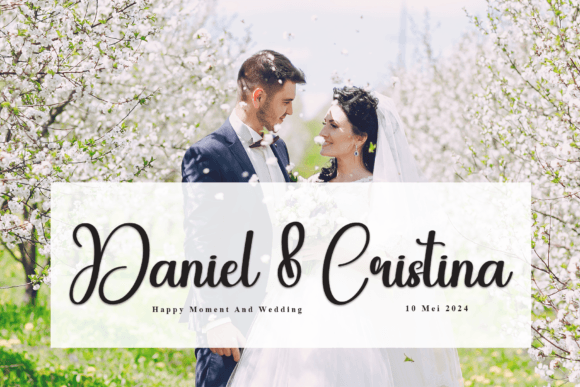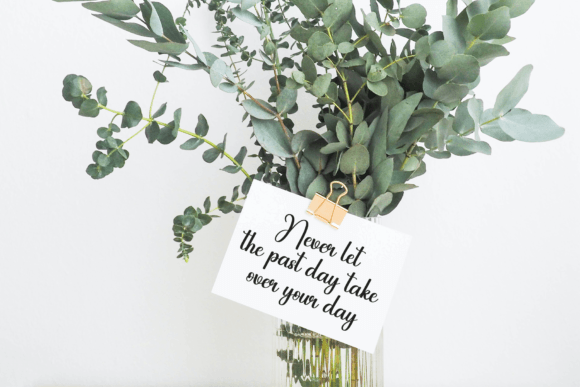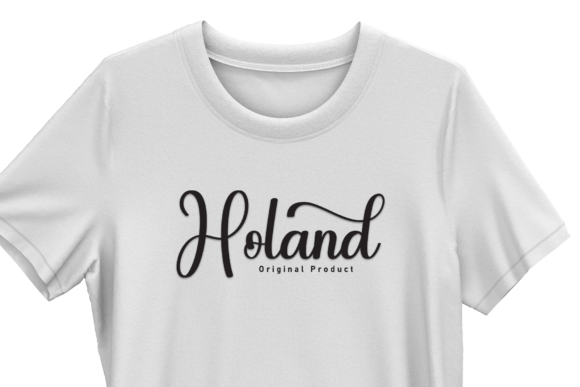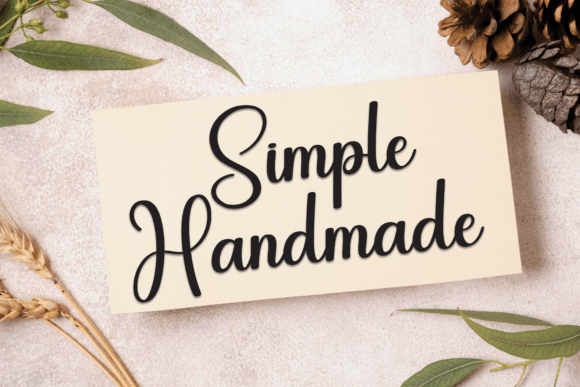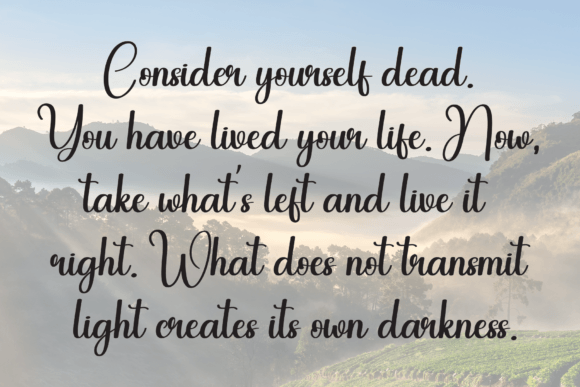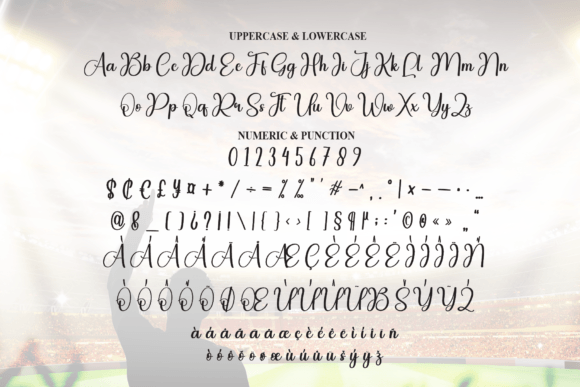
Introduction to Match Font
As a designer, have you ever stared at a blank canvas, searching for the perfect font to bring your creative project to life? The struggle is real, but we’re here to introduce you to a game-changer – Match Font, a charming calligraphy-based handwritten font that’s sure to captivate your audience. With its delightful charm and playful sparkle, this unique typography is the perfect addition to your design arsenal.
Whether you’re crafting wedding invitations, greeting cards, or any other design that needs a personal touch, Match Font is here to help. This artistic tool amplifies the personality in your projects, leaving your audience with an unforgettable experience. And the best part? It’s available for free download, making it an invaluable design resource for creatives of all levels.
Key Features of Match Font
Honest Review: Match Font
Match Font
Using Match Font in Adobe Photoshop/Illustrator
In Adobe Photoshop or Illustrator, you can use the Match Font tool to find a font that matches the style and characteristics of your selected text. Simply select the text and go to “Type” > “Match Font” to access the tool.
Using Match Font in PowerPoint/Word
In PowerPoint or Word, you can use the Match Font feature to match the font of your selected text. Simply select the text and go to the “Home” tab, click on the “Font” button, and select “Match Font” from the dropdown menu.
Tips for Getting the Most Out of Match Font
To get the most out of Match Font, make sure to adjust the transparency of the background to ensure a seamless match. You can also use Match Font to create a consistent design across multiple platforms.
Match Font is ideal for designers who want to create a high-quality design with a transparent background. It’s also a great resource for those who need a free download of high-quality fonts for their creative project.
Alternatives to Match Font
Font Squirrel
Font Squirrel is a popular design resource for high-quality fonts with transparent backgrounds. It offers a wide collection of fonts suitable for various creative projects. When to use: You’re working on a project that requires a specific font style or a font with a transparent background. How it compares to Match Font: Font Squirrel has a more extensive collection of fonts, but the process of finding a matching font can be more time-consuming.
How do I ensure the fonts I download from Match Font are of high quality?